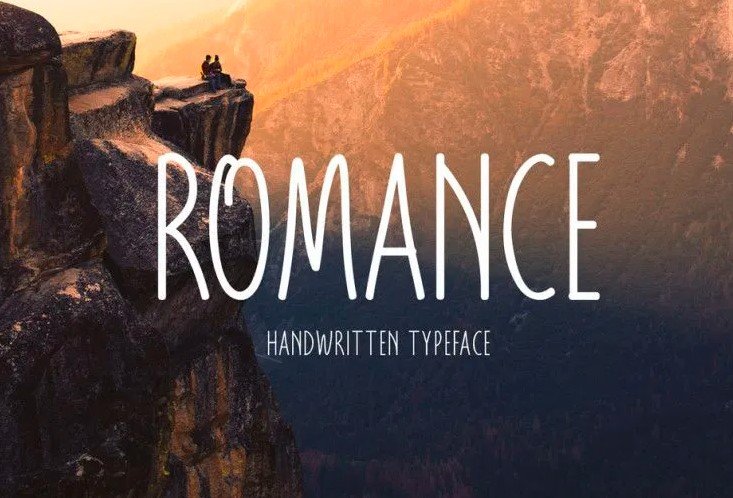
Romance Font is a beloved and renowned typeface among graphic designers, crafted and generously shared by the designer who created it with love and care. It includes all the essential elements you need to develop an outstanding project for your client. Best of all, all these great features are available for free.
View Of Romance Font
Now, the time is came to view the sample the of great typeface. Below, we shared an image that contains the glyphs and characters of this amazing font which creates best designs in Adobe photoshop and Adobe Illustrator.
| Name | Romance Font |
| Style | Handwritten |
| Designer | Seemly Fonts |
What Type of Font Is Romance?
The Romance Font is the famous and amazing typeface which was product of the combination efforts by Seemly Fonts.